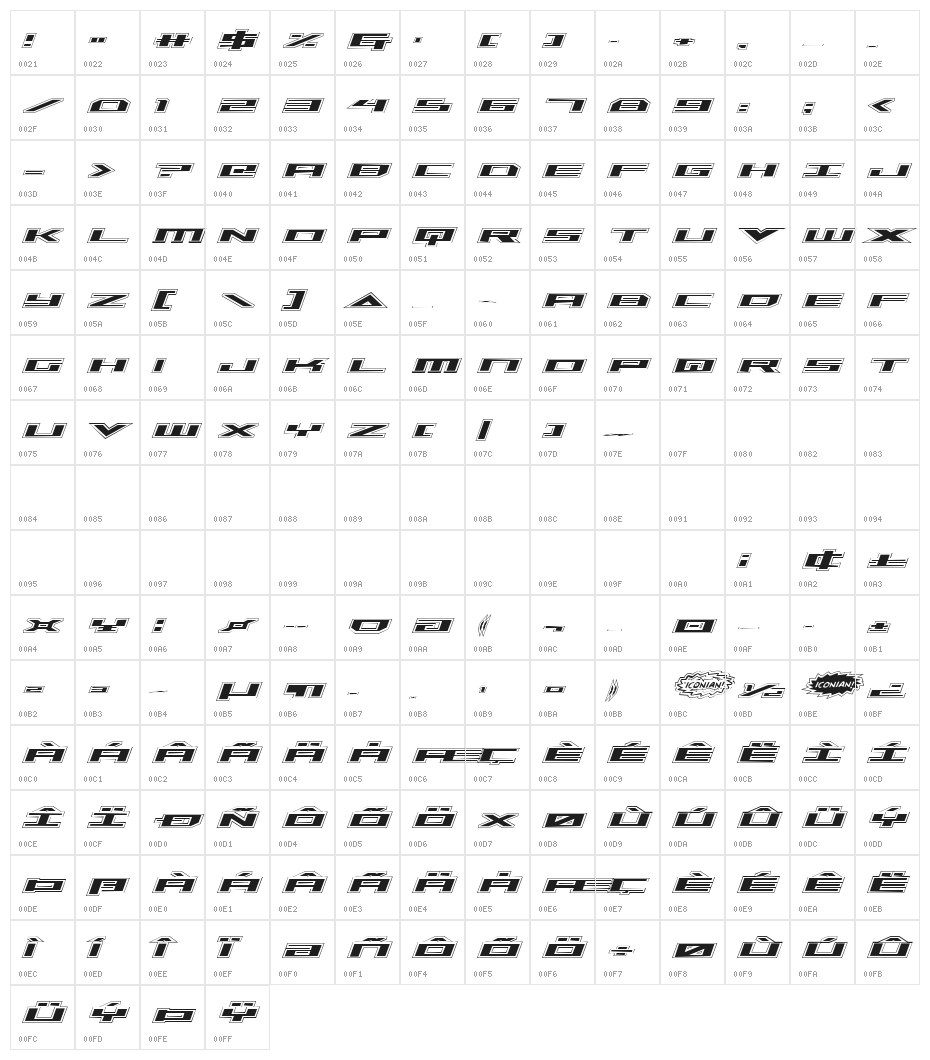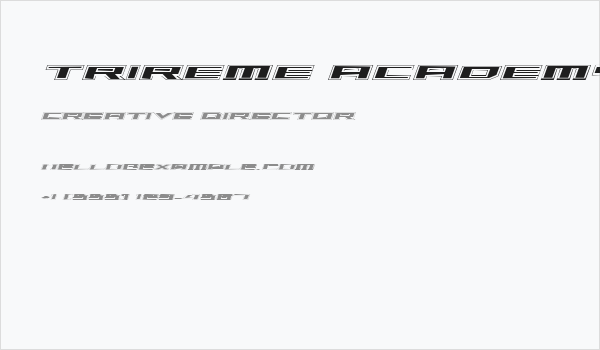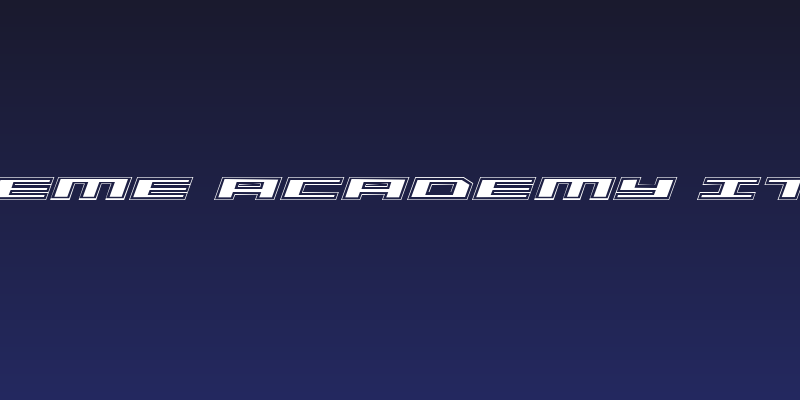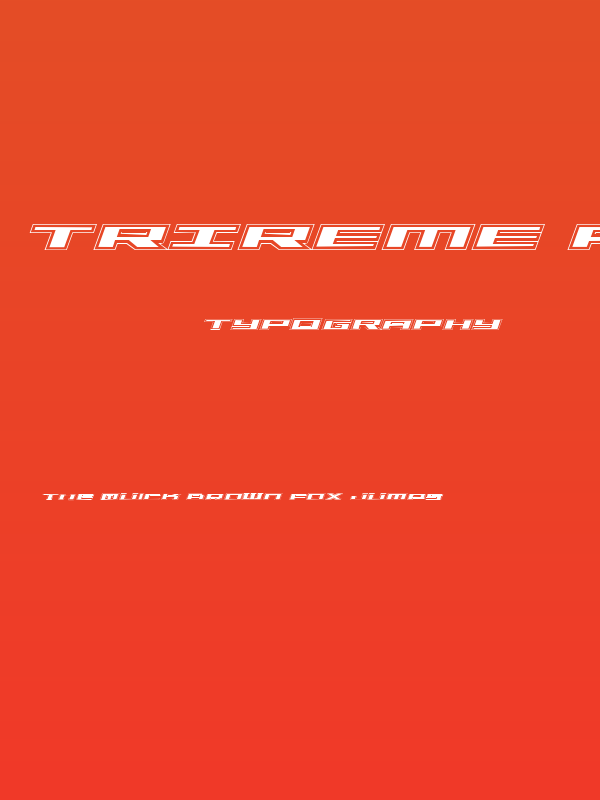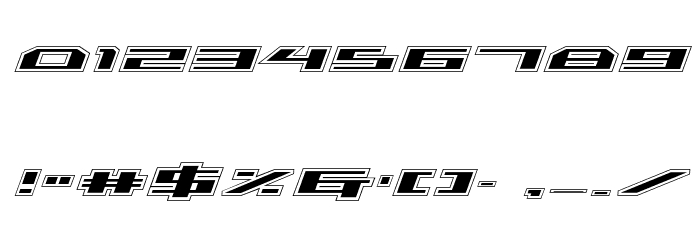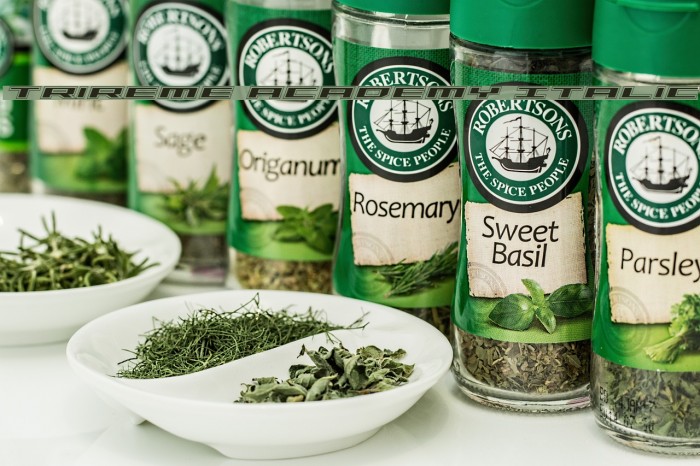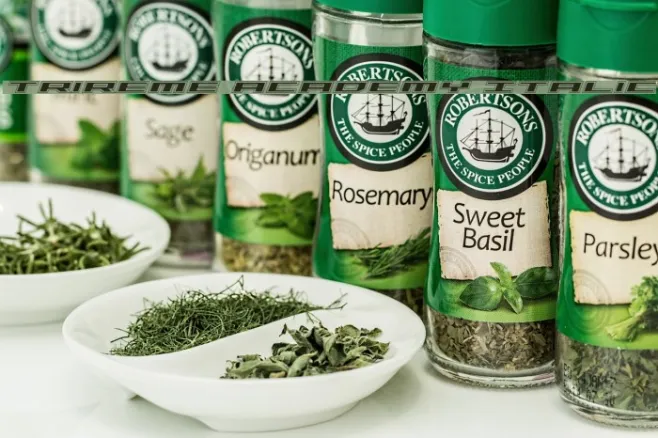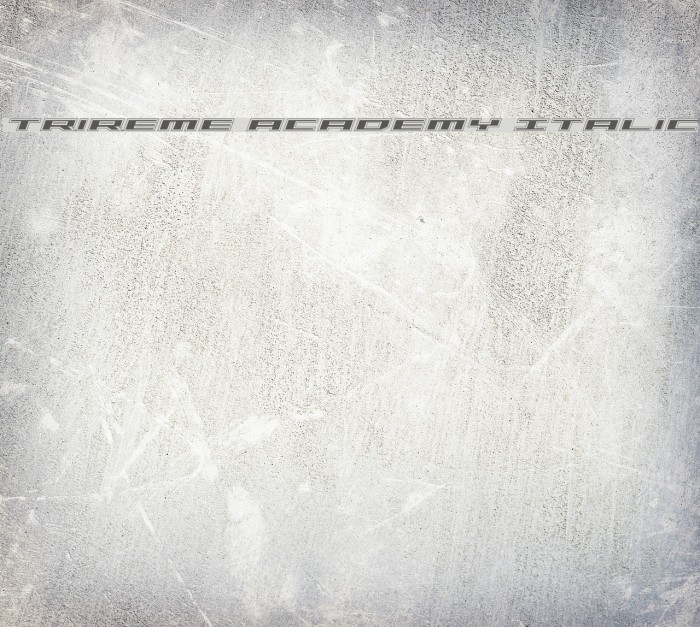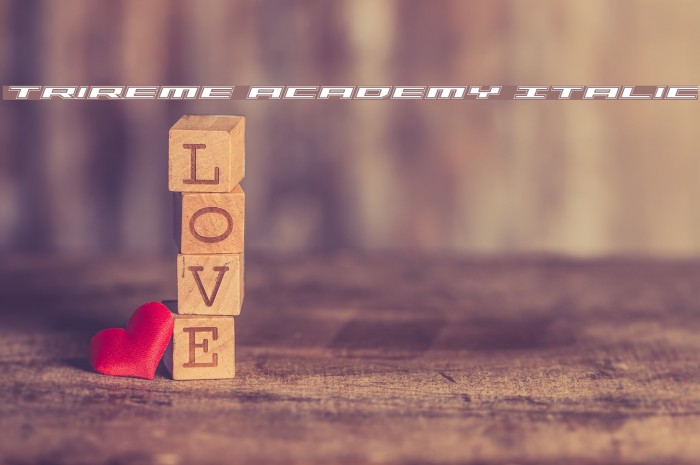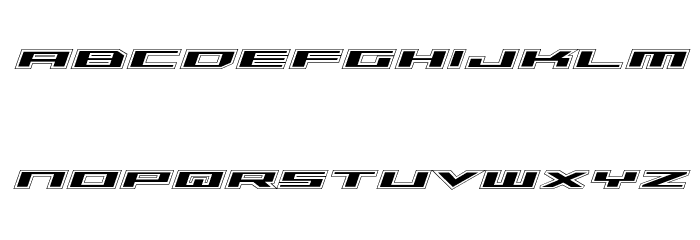
Trireme Academy Italic Font
Trireme Academy Italic Description
This font features a futuristic and dynamic design, characterized by its italicized and angular letterforms. The characters exhibit a bold and geometric structure, with sharp edges and a sense of movement. The uppercase and lowercase letters maintain a consistent style, enhancing the font's cohesive appearance. The numerals and special characters follow the same design principles, ensuring uniformity across all glyphs. The font's distinct style makes it suitable for projects that require a modern and edgy aesthetic.
| Proposed Projects | Ideal for sci-fi themed designs, video game titles, technology branding, and modern advertising campaigns. |